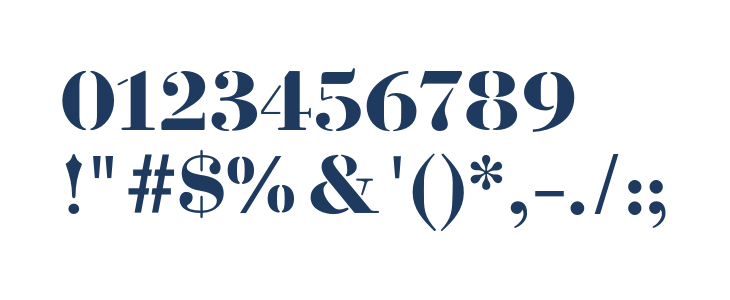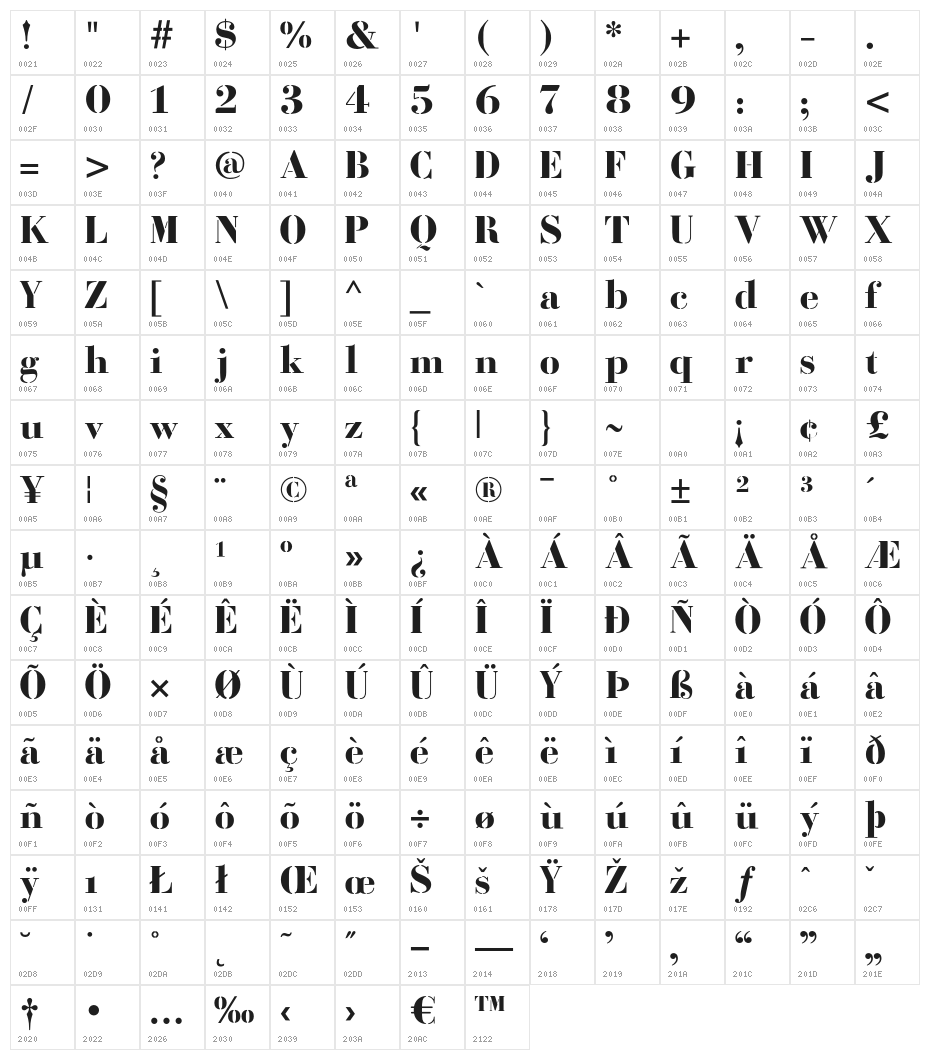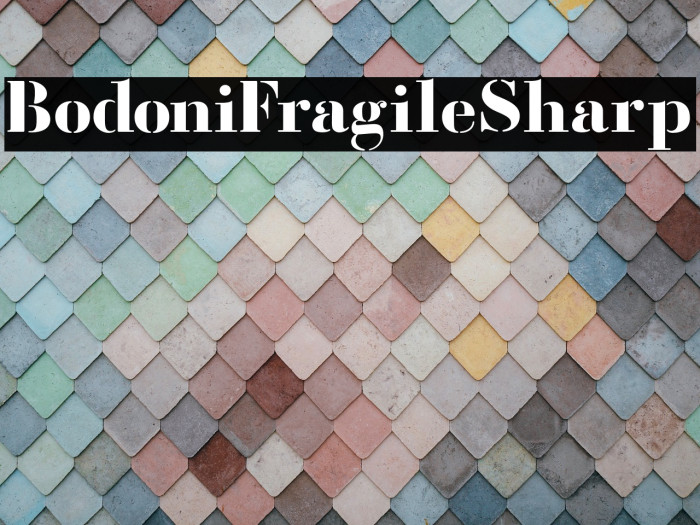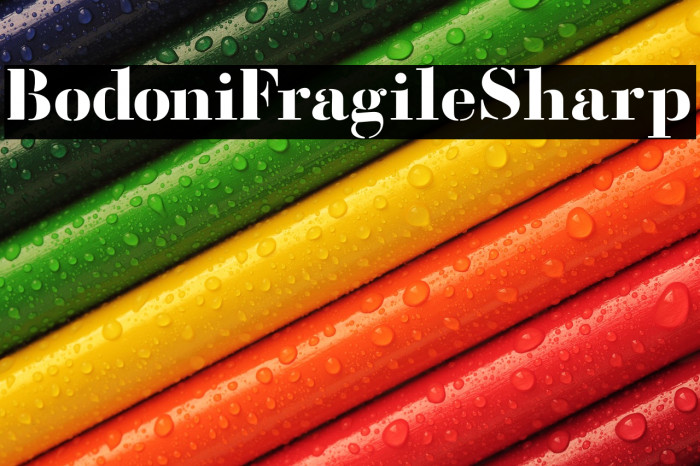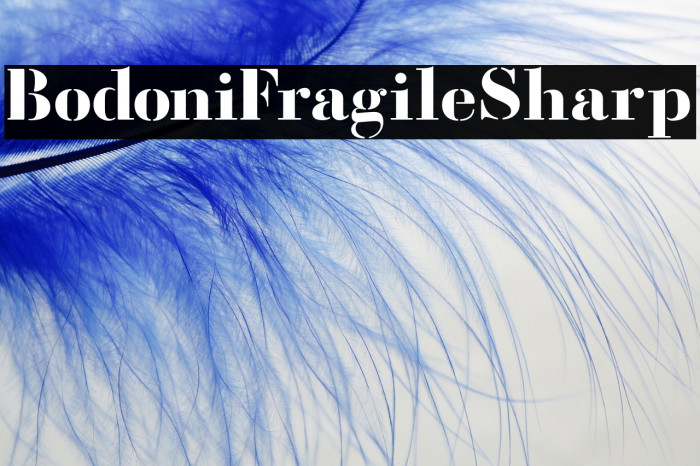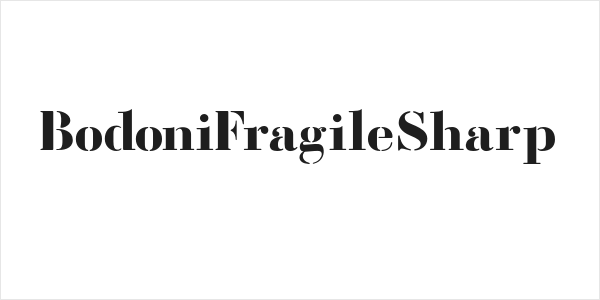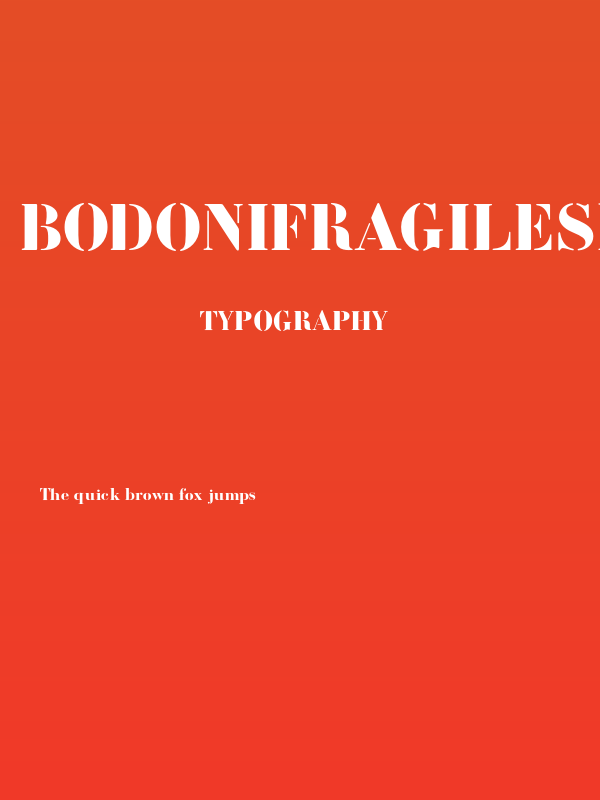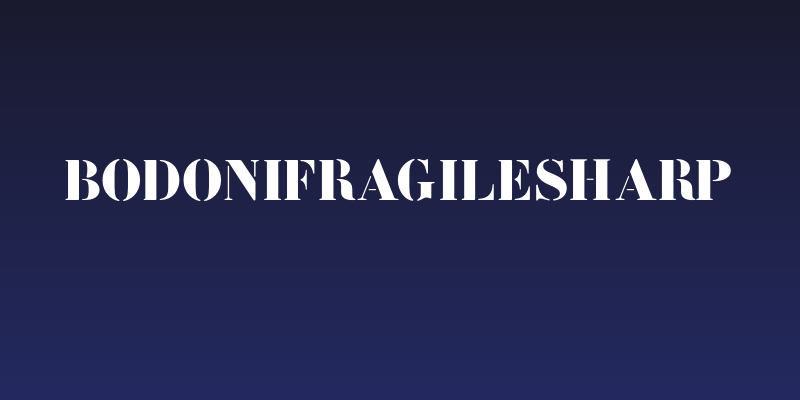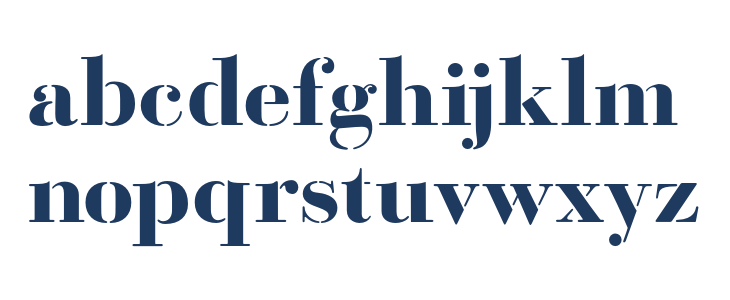
BodoniFragileSharp Font
BodoniFragileSharp Description
This font features a striking and elegant design with high contrast between thick and thin strokes, giving it a sophisticated and refined appearance. The sharp serifs and clean lines contribute to its modern yet classic aesthetic. The uppercase letters are bold and commanding, while the lowercase letters maintain a graceful flow. The numerals are distinct and well-defined, and the special characters are crafted with precision. This font's unique style makes it suitable for a variety of creative applications.
| Use Case | Headlines, Logos, Editorial design |
| Proposed Projects | Ideal for luxury branding, editorial design, fashion magazines, and elegant invitations. |